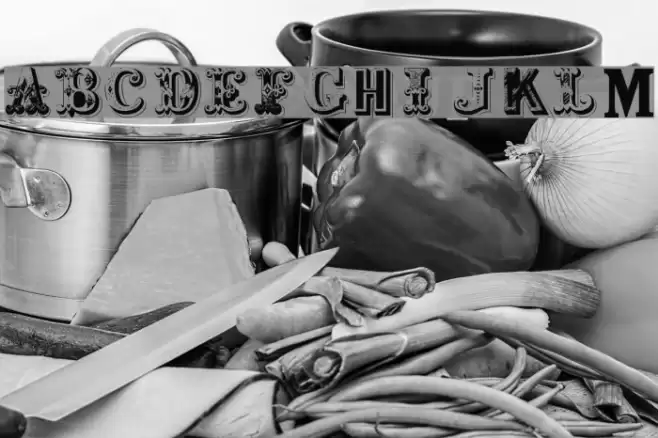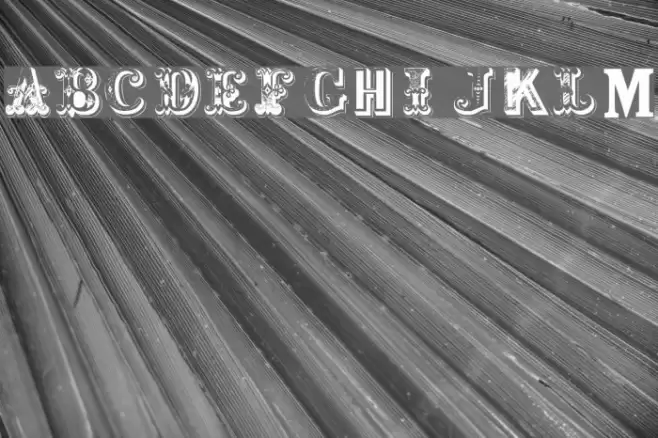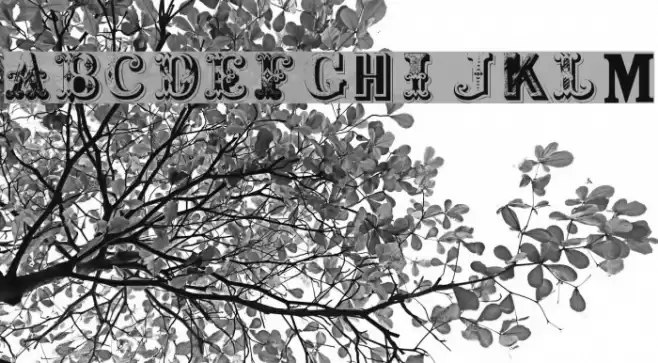
Shambhala Initials Plain Font
Shambhala Initials Plain Description
This font features an ornate and decorative style with intricate detailing and embellishments. Each letter is designed with a high level of artistry, incorporating flourishes and patterns that give it a unique and elaborate appearance. The characters are bold and striking, making them stand out with a sense of grandeur and elegance. The font is suitable for creating a vintage or classical aesthetic, with its intricate designs reminiscent of historical typefaces. The overall look is both sophisticated and eye-catching, perfect for projects that require a touch of luxury and refinement.
An ornate and decorative font with intricate detailing and bold characters from Uncategorized fonts.
- Overall Style: Vintage